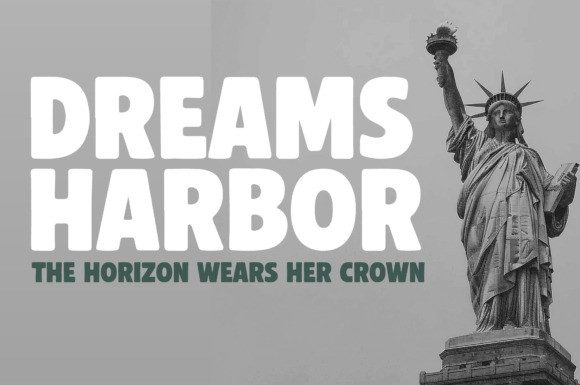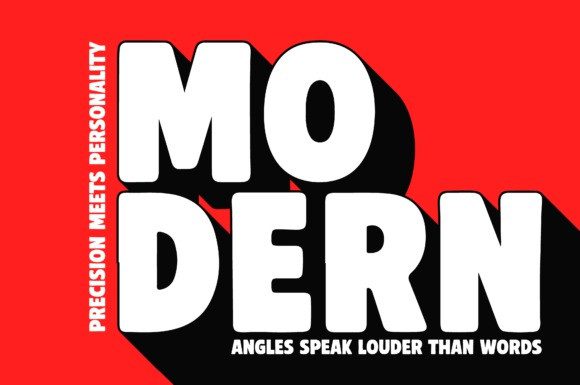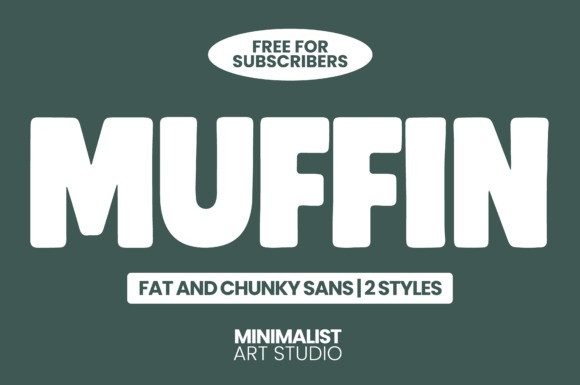
MUFFIN FONT
Muffin Font the playful yet powerful fat sans serif font designed to make your text pop with irresistible personality. Its thick, chunky letters deliver maximum impact while maintaining a clean, minimalist vibe that works across countless design styles.
Perfect for logos, headlines, posters, packaging, social media graphics, and modern branding projects, MUFFIN comes in two versatile styles to match your creative vision. Whether you’re crafting bold typographic statements or adding a retro-modern twist to your work, this font will keep your designs fresh, fun, and unforgettable.
Exclusively free for subscribers, MUFFIN was created by Minimalist Art Studio with the goal of combining visual weight with effortless readability. Its rounded edges and geometric proportions make it a must-have for designers who want their message to be both loud and stylish.